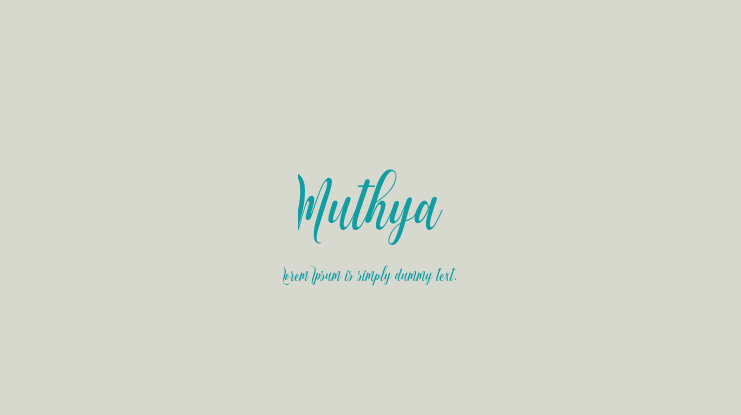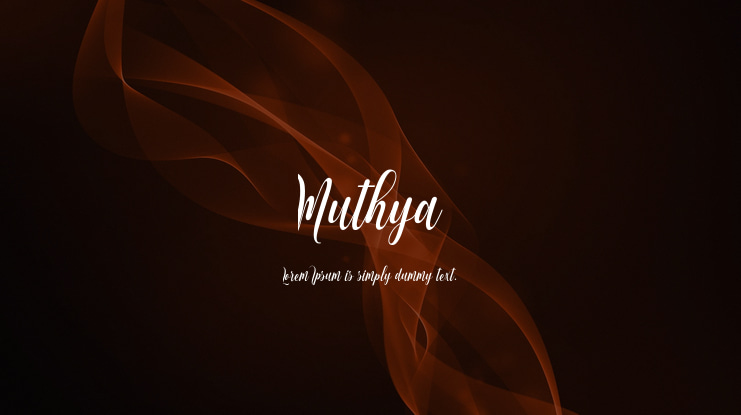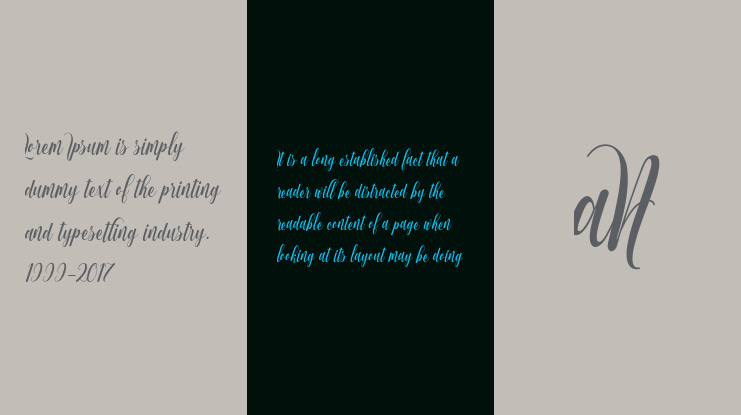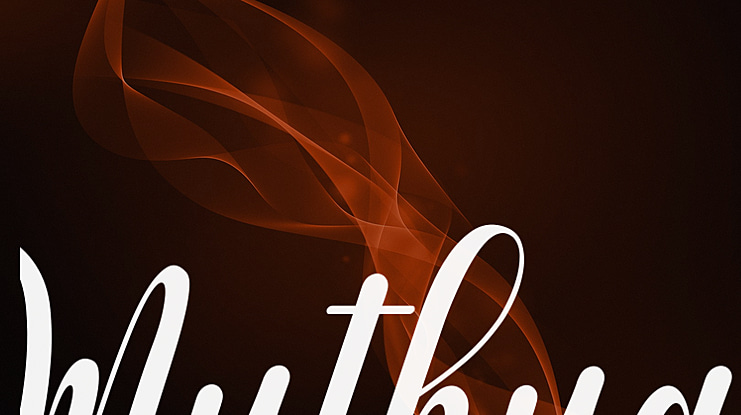
Muthya Font
Muthya is a font that made the hand by having the character up and down like a dancer. Muthya has a very unique style of calligraphy
Muthya font preview